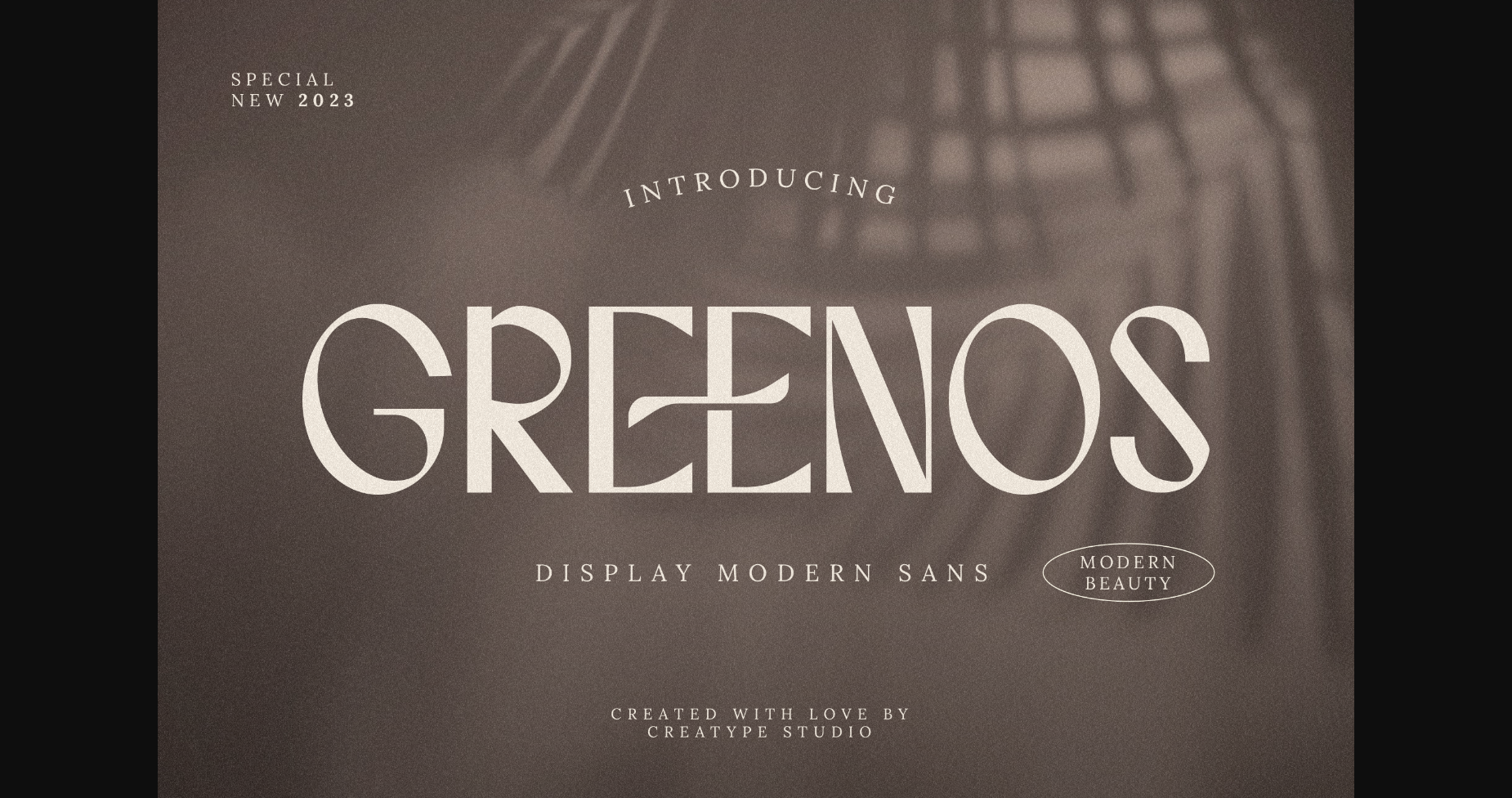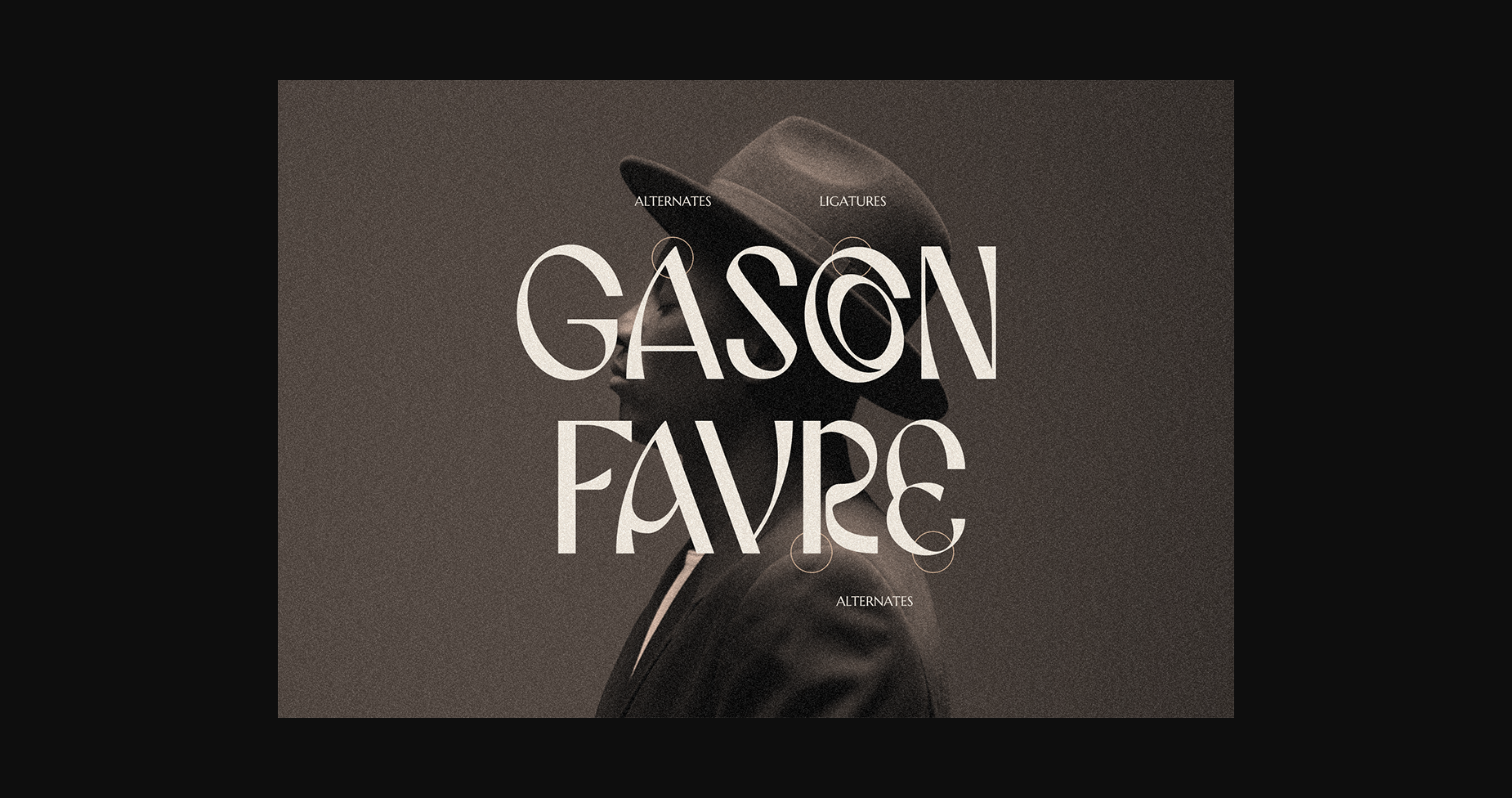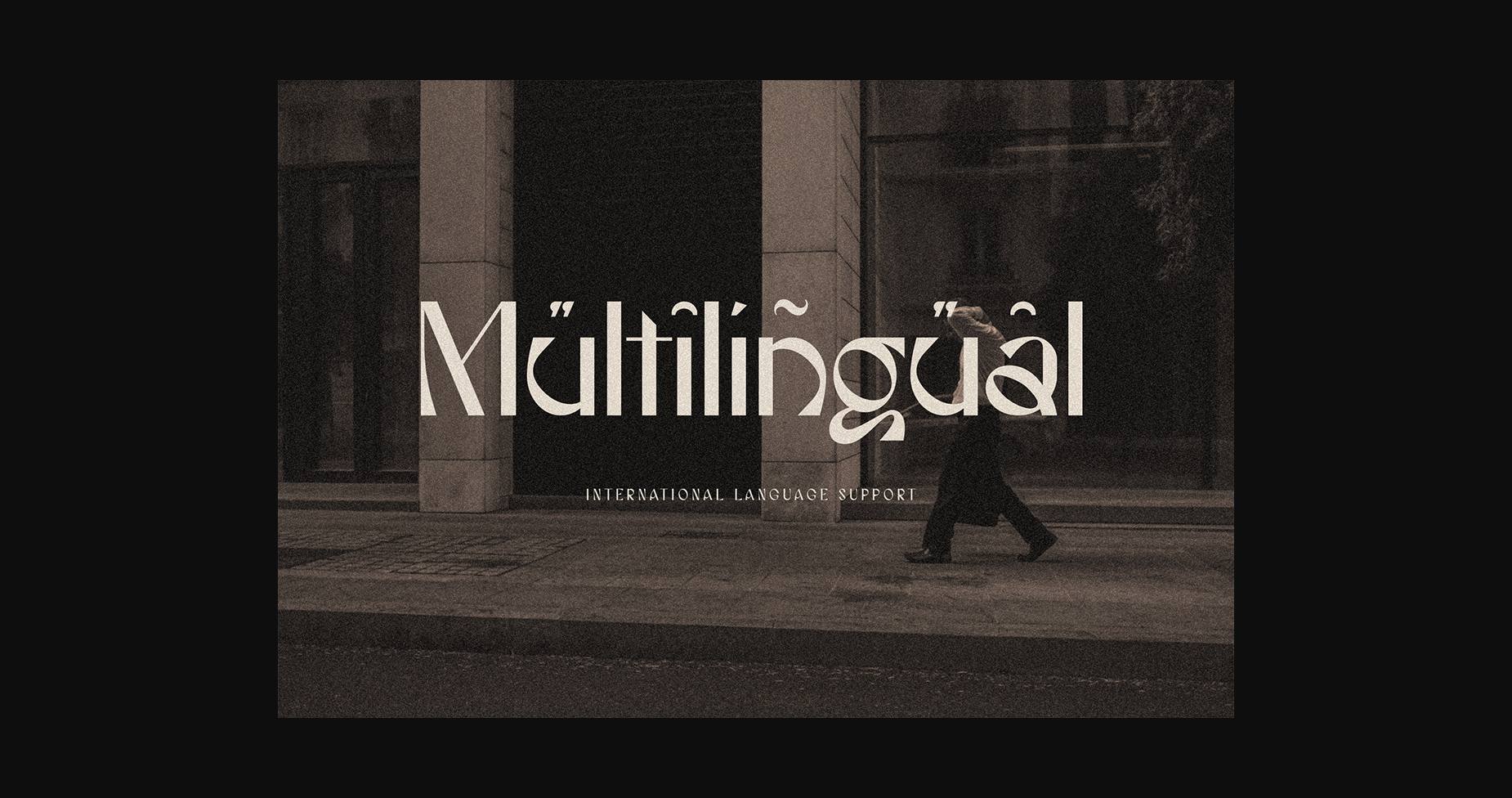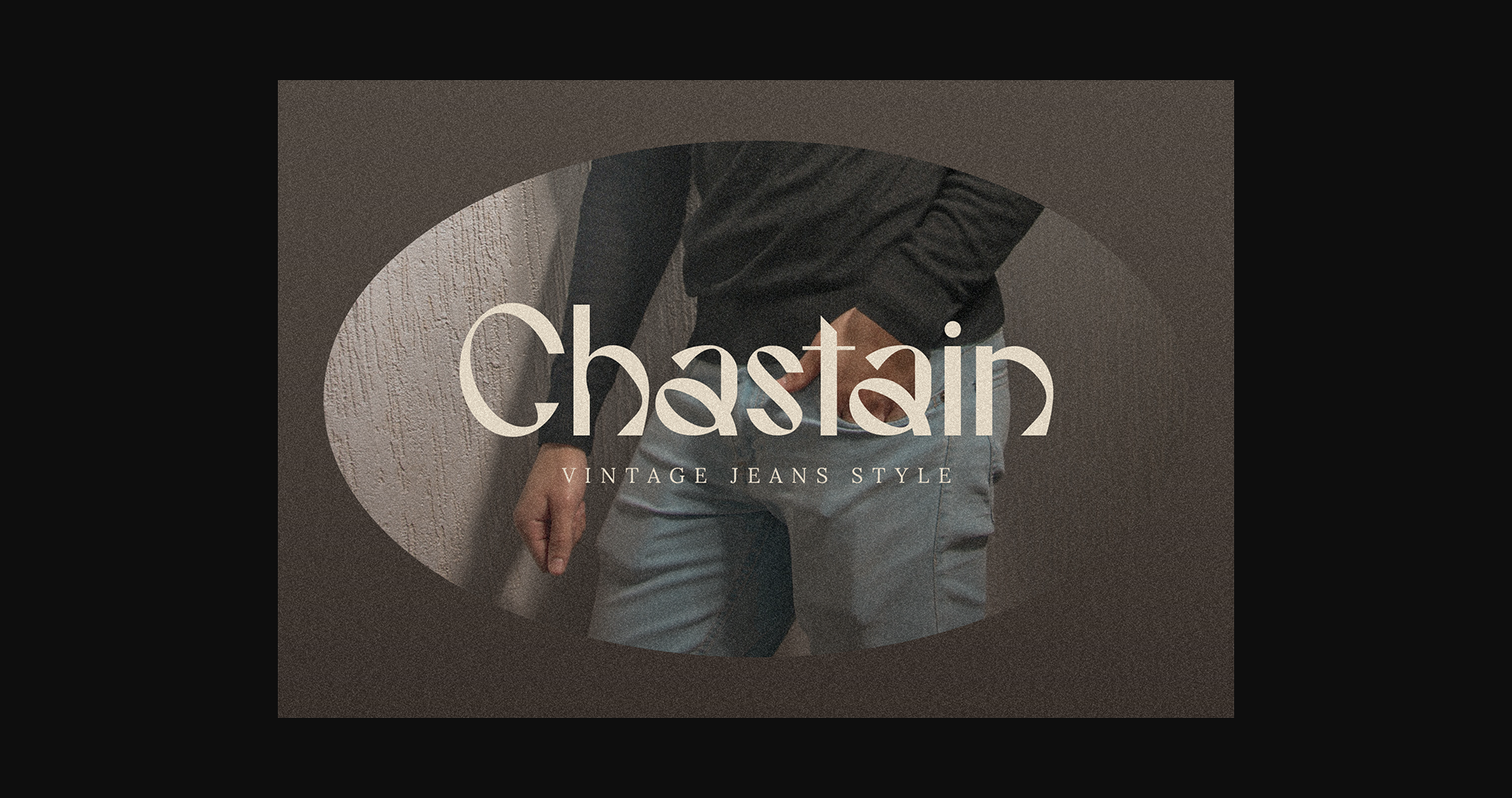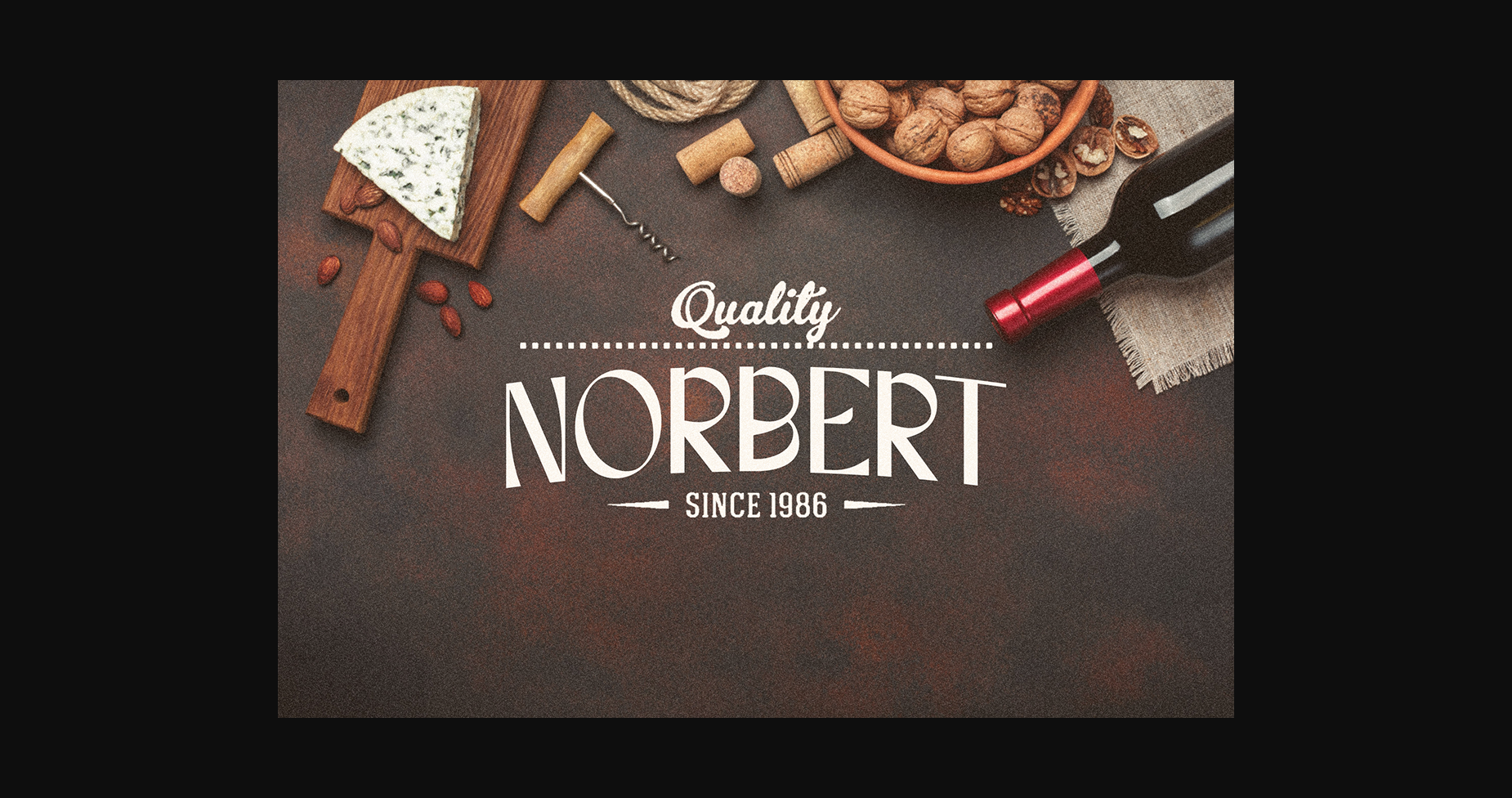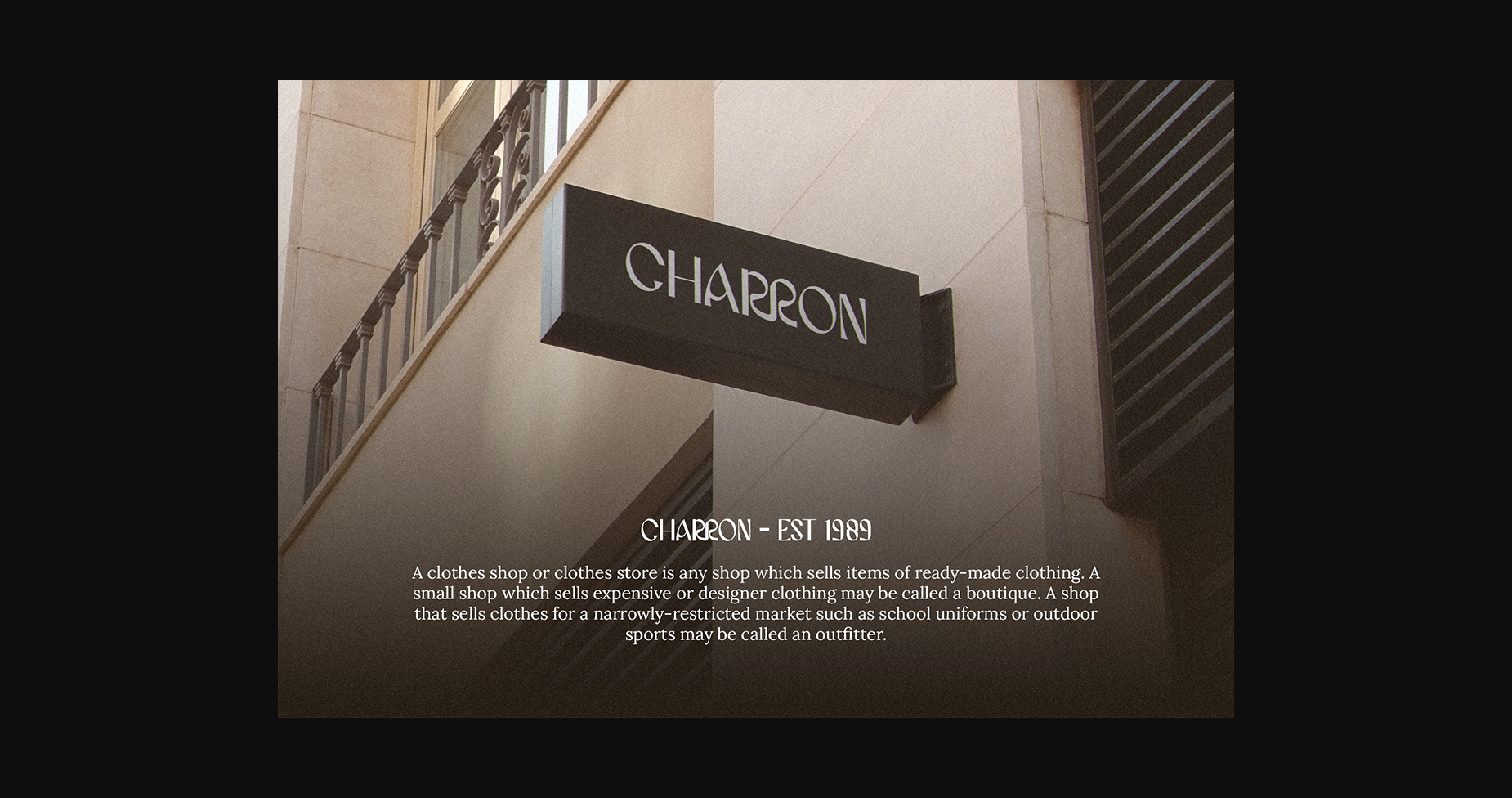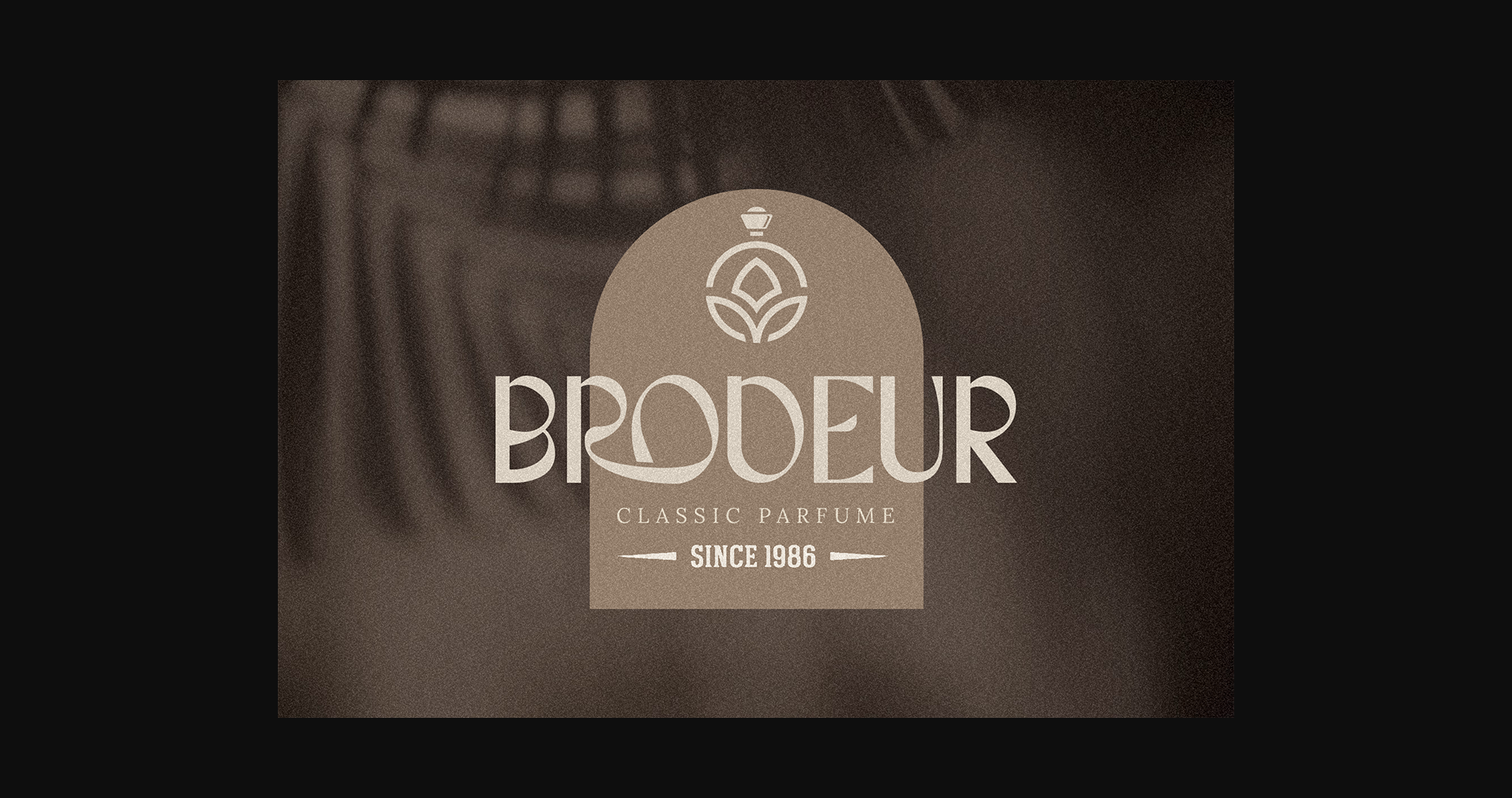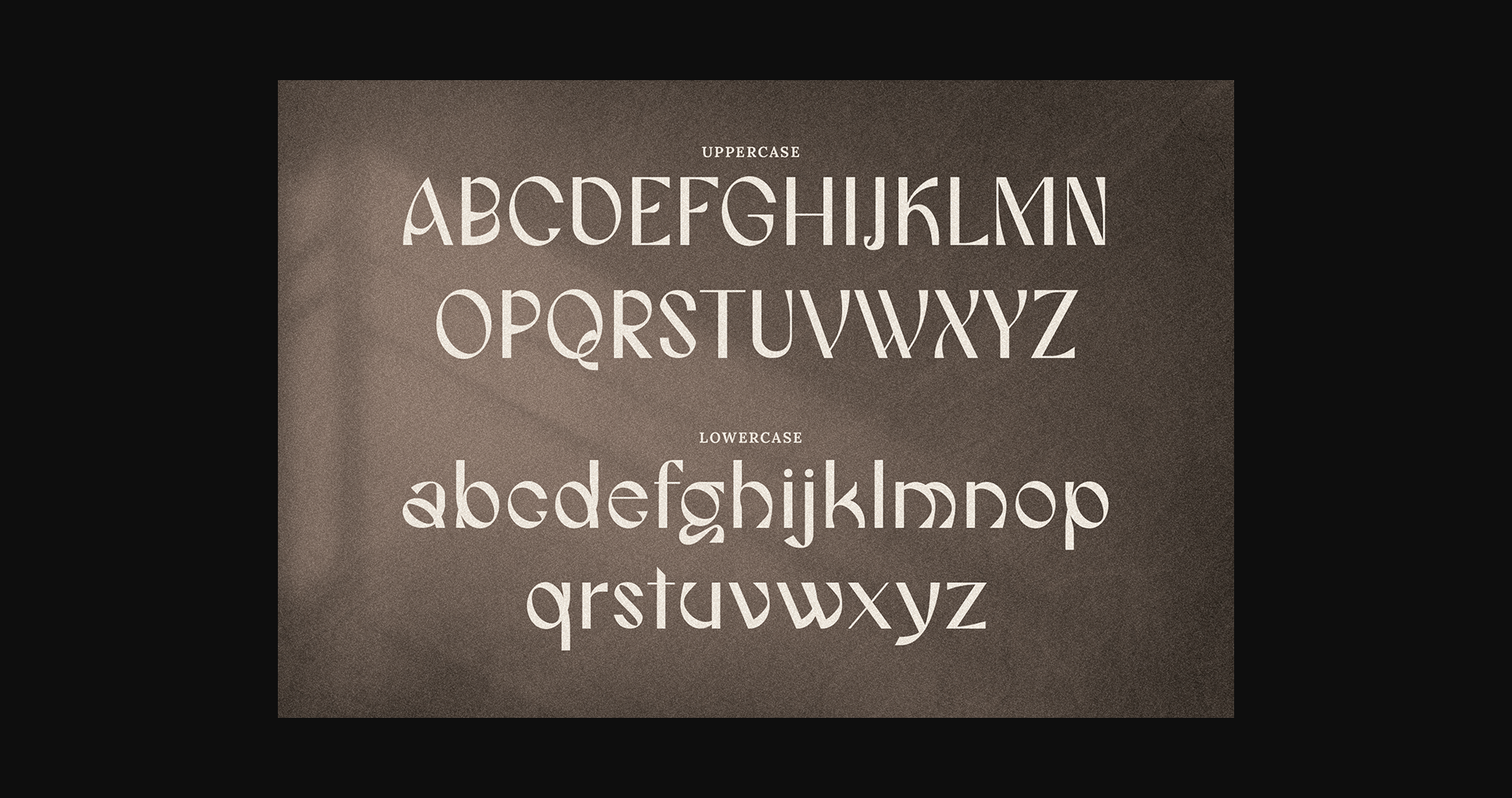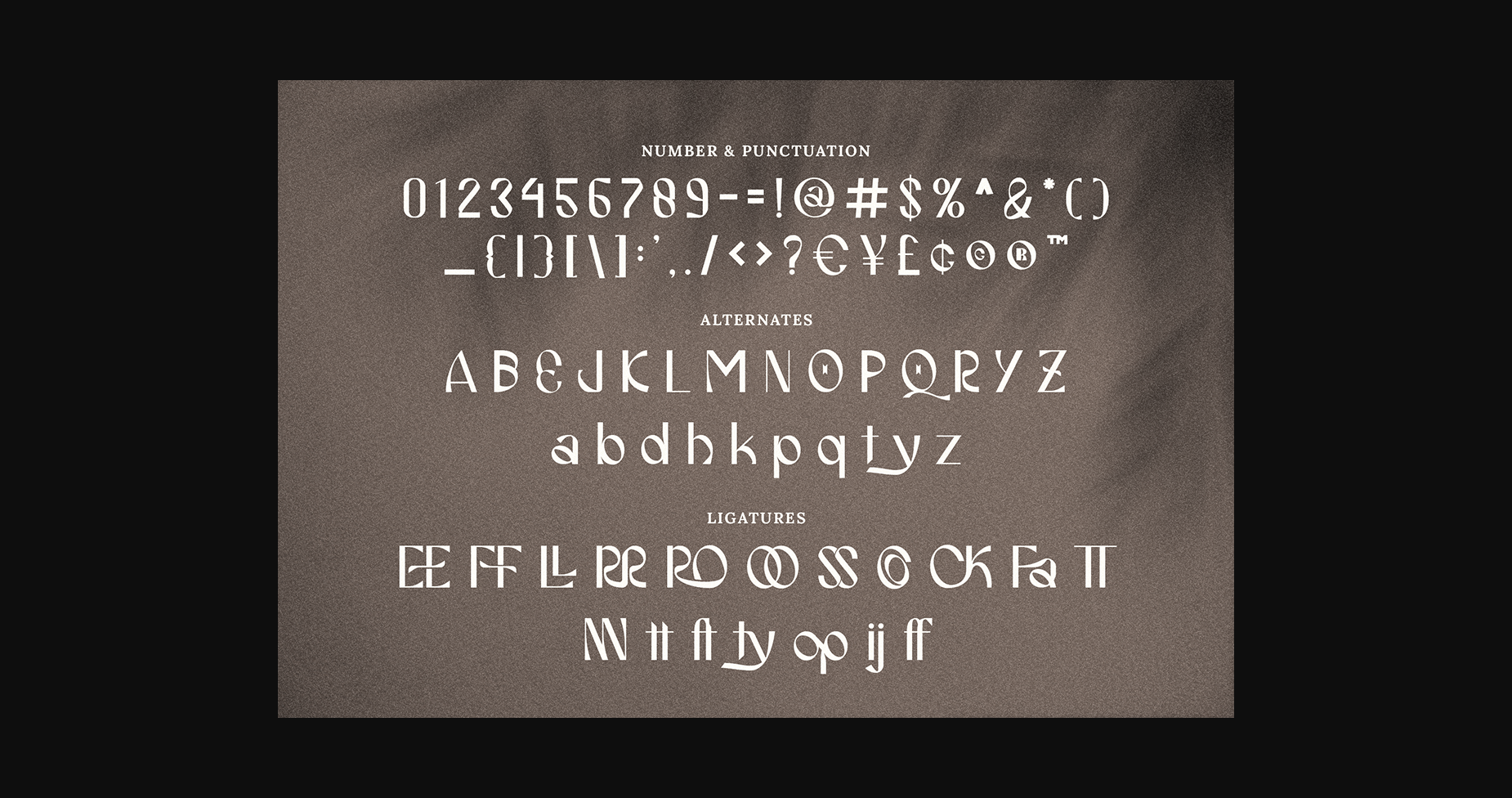
HomeSans Serif FontsGreenos Font Sans Serif Fonts Greenos Font FacebookXPinterestWhatsApp 1 of 11 ... Greenos Font Poster 2... Greenos Font Poster 3... Greenos Font Poster 4... Greenos Font Poster 5... Greenos Font Poster 6... Greenos Font Poster 7... Greenos Font Poster 8... Greenos Font Poster 9... Greenos Font Poster 10... Greenos Font Poster 11... About Greenos Font Greenos is an elegant and bold serif font. Fall in love with its incredibly versatile style and use it to create gorgeous wedding invitations, beautiful stationary art, eye-catching social media posts, and much more! DOWNLOAD NOW People also explored Balimtha Font Signation Font Paper Sign Font Galler Rebunk Font American Writer Bernard Wacker Font Kratzza Font Kittie Cuyie Font Dreamline Font 353 0 TagsGreenosGreenos Font Previous articleKinemga FontNext articleReborn Font LEAVE A REPLY Cancel reply Comment: Please enter your comment! Name:* Please enter your name here Email:* You have entered an incorrect email address! Please enter your email address here Website: Save my name, email, and website in this browser for the next time I comment. Personal Use Free Wintersoul Personal Use Free Read more about this font Adventure Font Personal Use Free Read more about this font Gardening Personal Use Free Read more about this font Boby Personal Use Free Read more about this font BLOG Free vs Paid Fonts: Why Investing in Premium Fonts Is Worth It Free vs Paid Fonts: Why Premium Fonts Are Worth It in 2025 The debate of free vs paid fonts continues in the design world. While... Fonts That Capture the Spirit of New York City Top 7 Google Fonts Alternatives for Faster and Privacy-Friendly Web Design (2025) Best Fonts for YouTube Videos: Make Your Thumbnails Stand Out